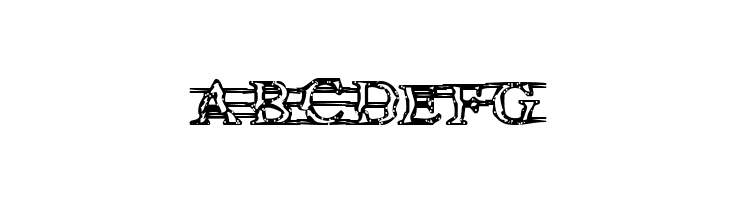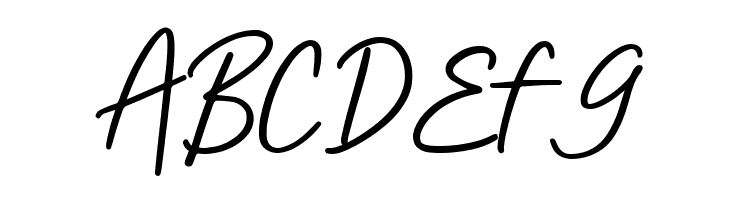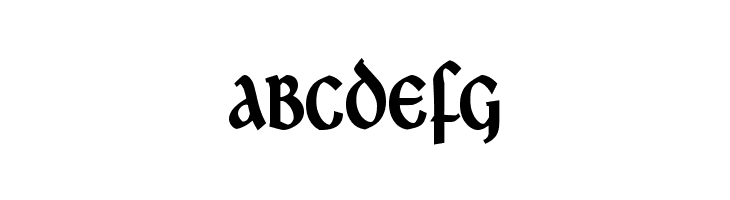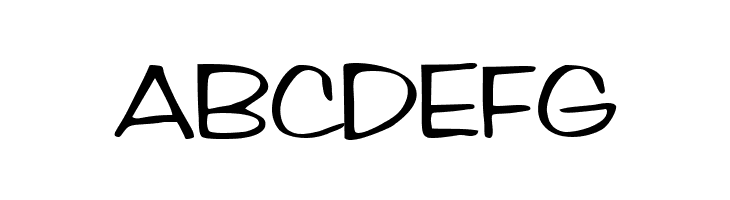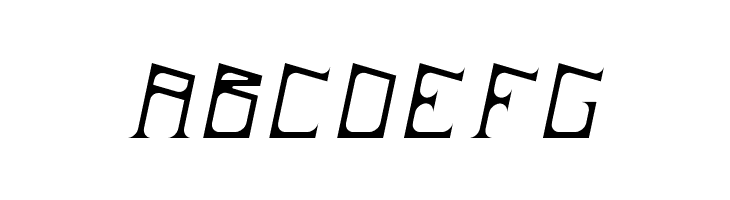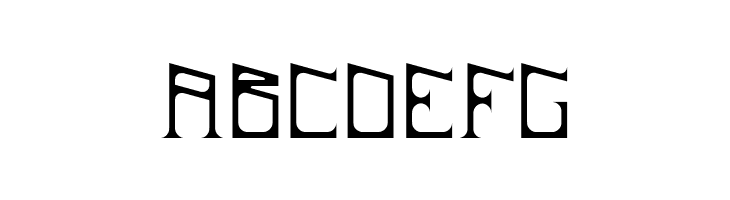
A bold, angular, and futuristic font with sharp geometric lines.
A bold, angular font with a geometric and dynamic style.
A bold, angular, semi-italic font with a modern and dynamic style.
A bold, angular, and italic font with a futuristic and aggressive style.
A bold, geometric font with a strong, industrial aesthetic.
A bold, geometric, italic font with sharp angles and strong visual impact.
A bold, futuristic font with a two-tone gradient effect and geometric design.
A bold, italicized font with a two-tone striped design, exuding a futuristic and dynamic style.
A playful, hand-drawn style font with rounded, flowing characters.
A bold, angular font with a geometric and adventurous style.
A modern, geometric font with sharp, angular lines and a futuristic style.
A bold, distinctive font with a blend of traditional and modern elements.
A dynamic, italic font with sharp, angular edges and a modern, edgy style.
A bold, angular font with a modern, geometric style.
A geometric, Art Deco-inspired font with elegant, elongated forms.
A sleek, art deco-inspired font with tall, narrow letterforms and subtle curves.
An ornate blackletter font with intricate flourishes and a gothic style.
A playful, hand-drawn font with bold, irregular strokes and a casual vibe.
An elegant, flowing script font with a classic calligraphic style.
A bold, gothic-inspired font with sharp, angular edges and a strong presence.
A bold blackletter font with sharp, angular lines and a dramatic presence.
A flowing, cursive script font with elegant, interconnected strokes.
An artistic and whimsical font with elongated, flowing letterforms.
Casual handwritten script font.
Hand-drawn, sketch-style arrows and symbols with a casual, informal look.
A bold, 3D geometric font with a striking shadow effect.
A bold, modern font with a geometric and slightly condensed style.
A dynamic, waved decorative font with a unique flowing texture.
A bold, flowing script font with high contrast and elegant curves.
A distressed, hand-drawn font with a rugged, textured appearance.
A playful, hand-drawn font with rounded, elongated characters.
A playful, rounded, handwritten-style font with smooth curves.
A playful, rounded handwritten font with smooth, consistent strokes.